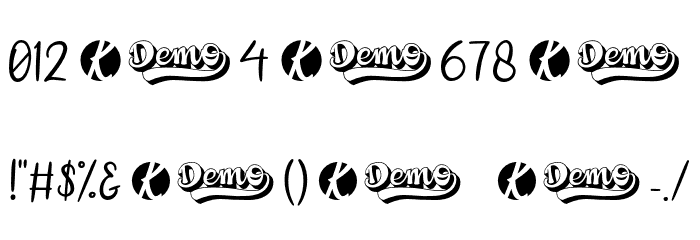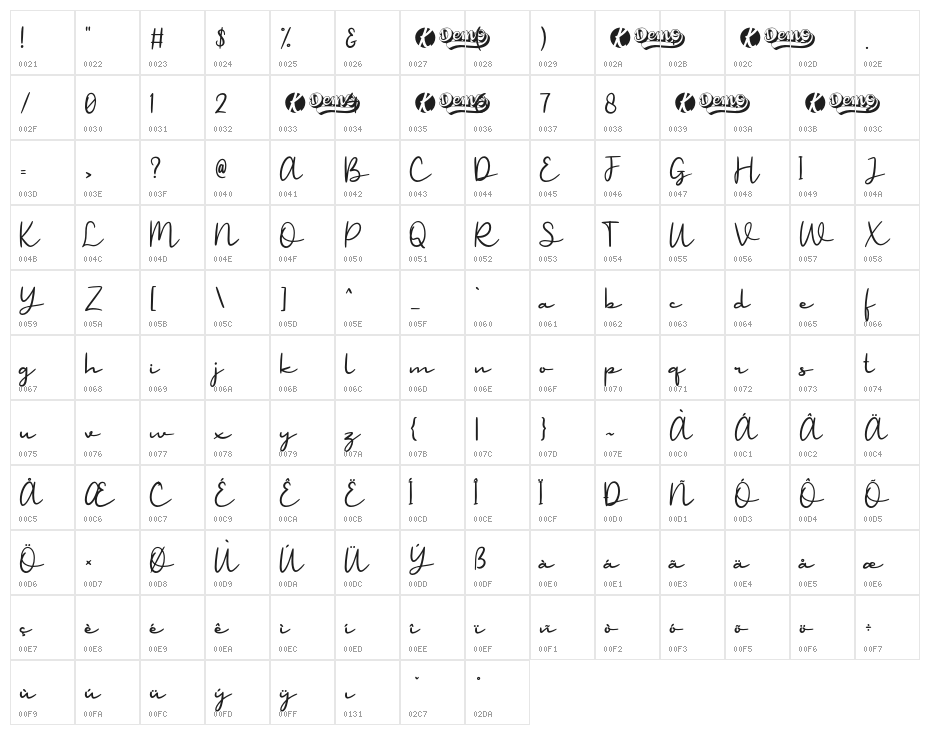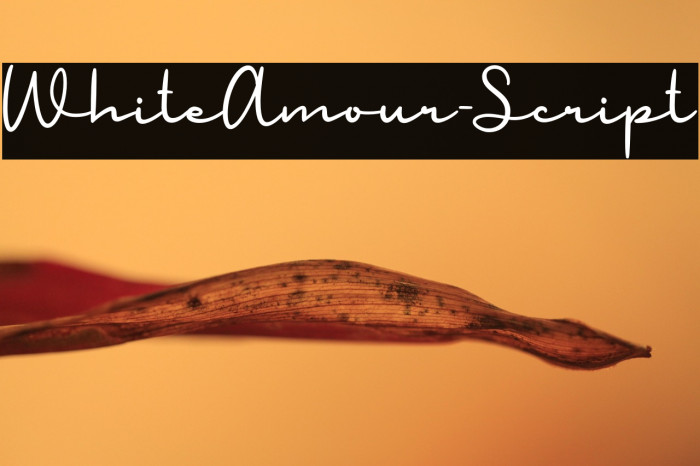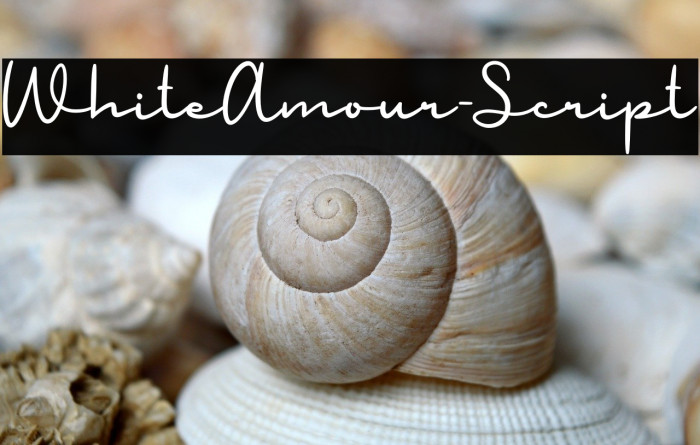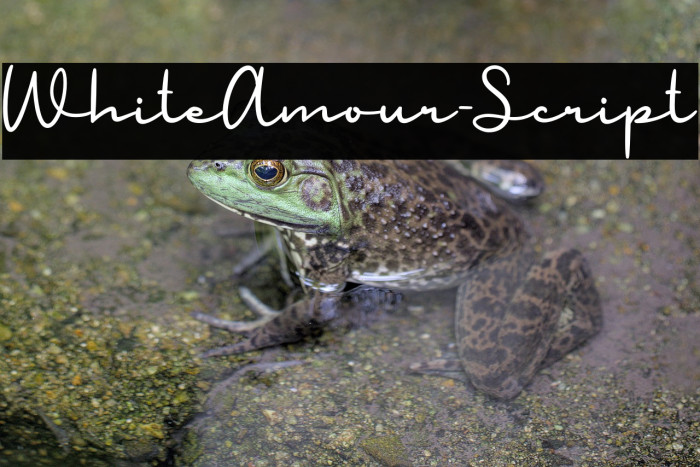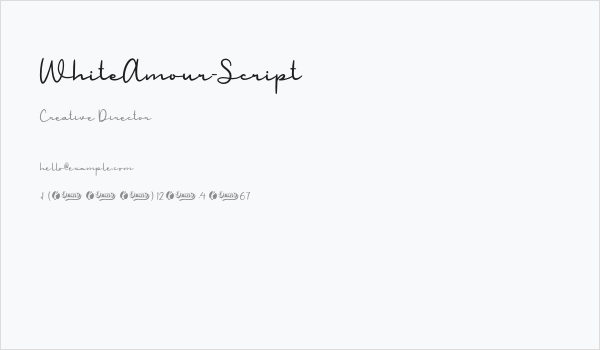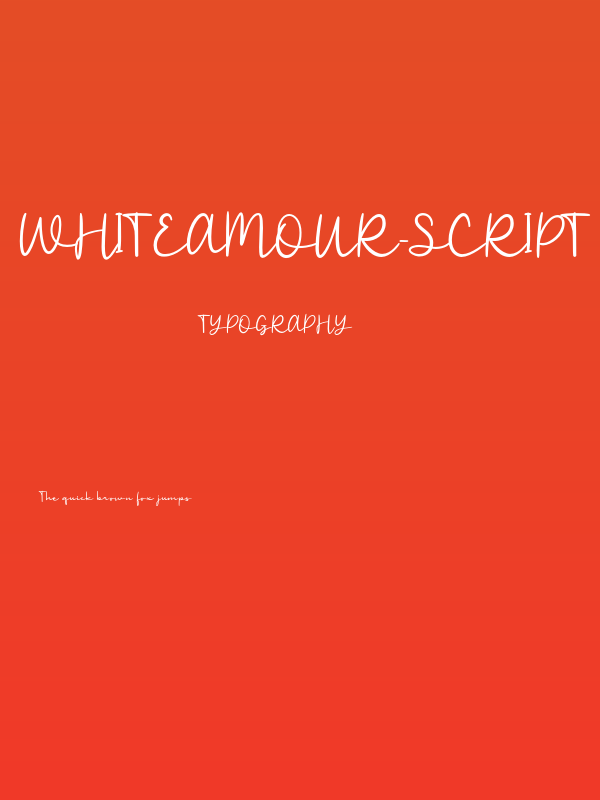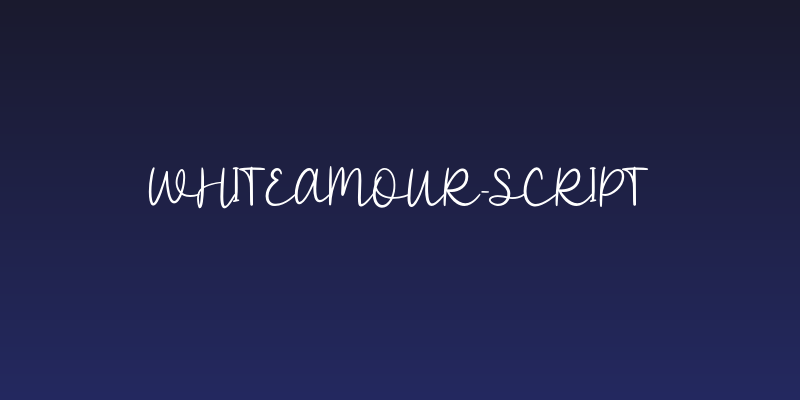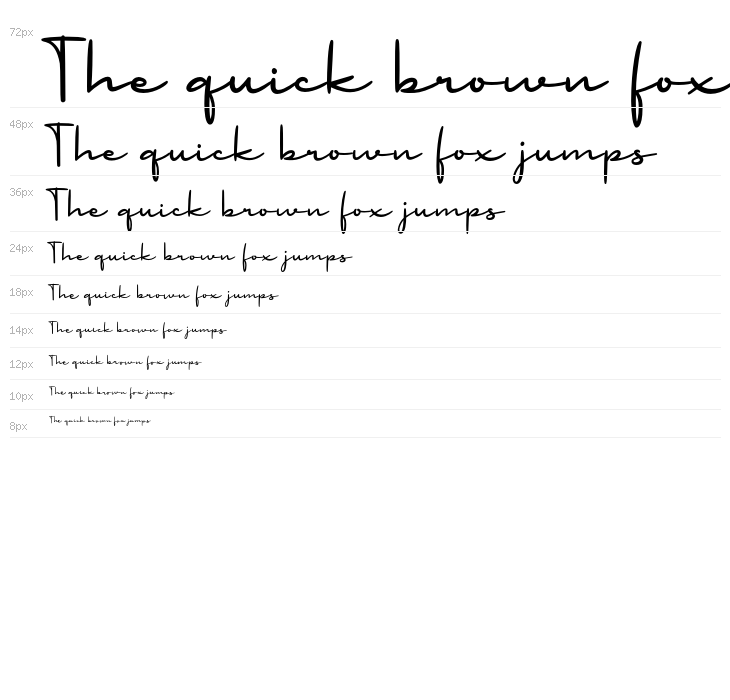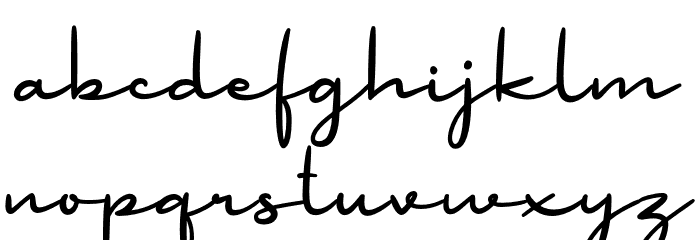
WhiteAmour-Script Font
WhiteAmour-Script Description
This font features a flowing, cursive style that exudes elegance and sophistication. The uppercase letters are tall and slender, with graceful loops and curves that give a sense of fluidity. The lowercase letters maintain a consistent stroke width, enhancing readability while preserving the script's charm. Numbers are styled to match the letters, with a slight slant and rounded edges. Special characters are seamlessly integrated, maintaining the overall aesthetic. The font's design is ideal for projects that require a touch of class and refinement.
| Proposed Projects | Ideal for wedding invitations, elegant branding, personal stationery, and romantic quotes. |